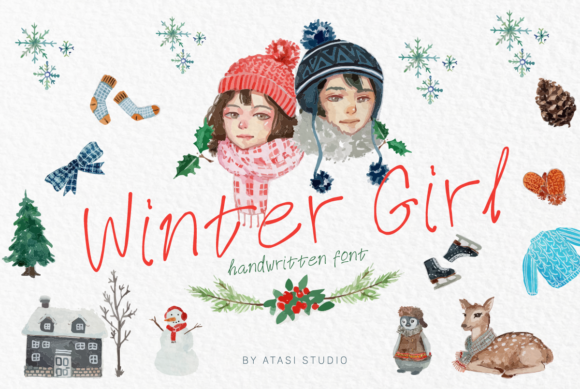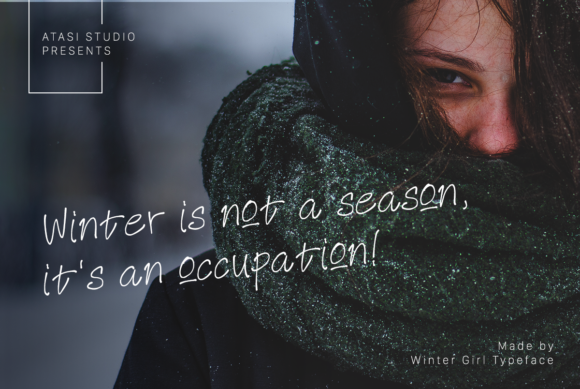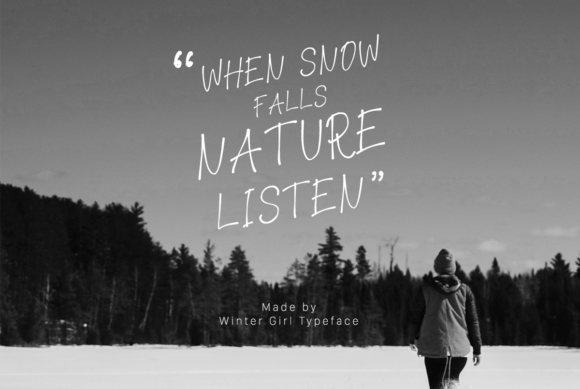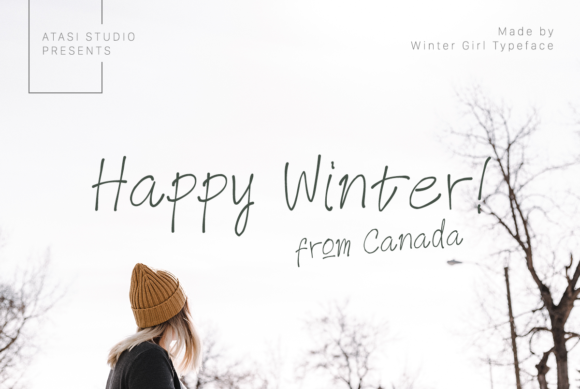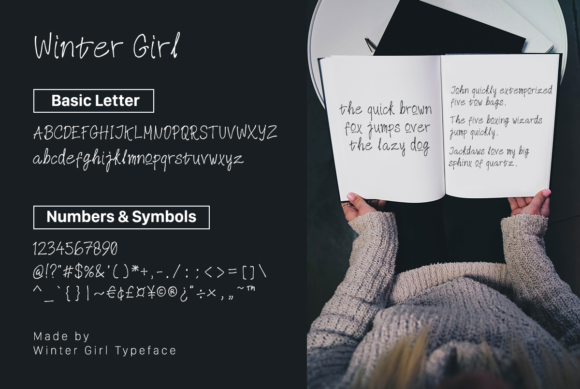
Winter Girl Font
About Winter Girl Font
Introducing “The Winter Girl,” a winter-themed script font that brings a playful and festive style to your designs. This font is not just a typeface; it’s a design package that includes a delightful set of winter-themed watercolor illustrations. “The Winter Girl” is perfect for adding a touch of whimsy to your winter projects.
The playful style of “The Winter Girl” makes it an ideal choice for winter-themed designs, from holiday cards to festive posters and beyond. Its script font adds a touch of warmth and character to your text, creating a cozy and inviting atmosphere.
What sets “The Winter Girl” apart is the accompanying set of fun watercolor illustrations. These winter-themed elements provide a charming and cohesive visual experience, making it easy to create delightful compositions for various applications.
Whether you’re working on holiday invitations, winter-themed social media graphics, or any project that requires a festive touch, “The Winter Girl” offers a playful and cohesive design solution. Its adaptability allows you to infuse a whimsical winter vibe into your creative projects.
In summary, “The Winter Girl” is not just a font; it’s a design package that brings a playful winter style to your projects. Embrace its script font for text elements and make use of the included watercolor illustrations to create charming and festive compositions for a variety of applications. Let “The Winter Girl” add a touch of joy and whimsy to your winter-themed designs.